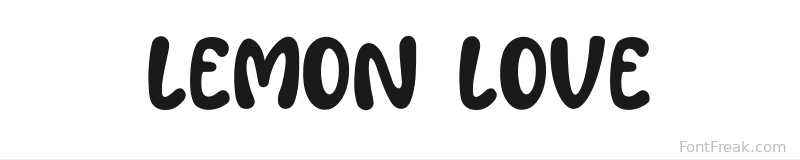
Lemon Love
Lemon Love is a delightful display font designed by Syaf Rizal, categorized as a decorative typeface. This font exudes a playful and whimsical charm, characterized by its rounded strokes and slightly irregular shapes that provide a handwritten feel. The stroke weight is moderately bold, ensuring visibility while maintaining a friendly and approachable aesthetic. The spacing between letters is thoughtfully designed to enhance readability, making it suitable for various applications.
The Lemon Love font is an excellent choice for specific use cases, such as wedding invitations, where its warm and affectionate vibe can elevate the overall design. It is also perfect for creating eye-catching restaurant menus, where the unique look can draw attention and enhance the dining experience. Additionally, this font works well for promotional materials, such as flyers or posters for events, capturing a sense of joy and creativity. Graphic designers and content creators will find this font particularly useful for projects aimed at a youthful audience, as it embodies a spirit of fun and positivity.
Targeting small business owners and creative professionals, Lemon Love is a versatile font that can help brands convey their personality effectively. Whether used in logo design, social media graphics, or merchandise, its unique character can set a brand apart from the competition.
What truly makes the Lemon Love font stand out is its ability to evoke emotion while remaining highly functional across various mediums. Its free availability as a freeware adds to its appeal, allowing users to explore its potential without financial constraints. For those looking to add a touch of whimsy and warmth to their projects, the Lemon Love font free download is an opportunity not to be missed.